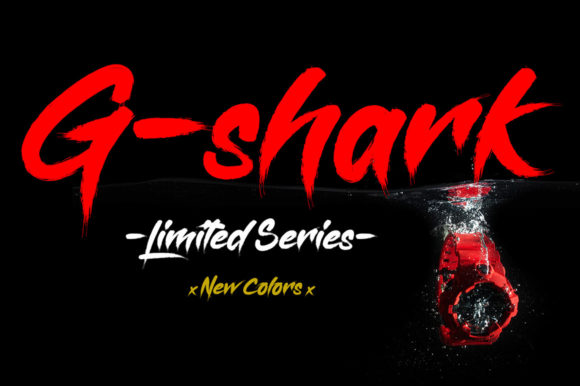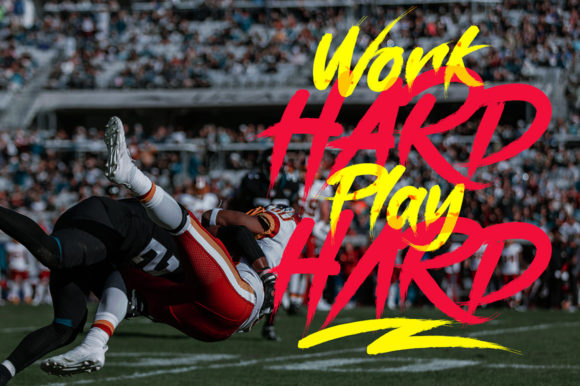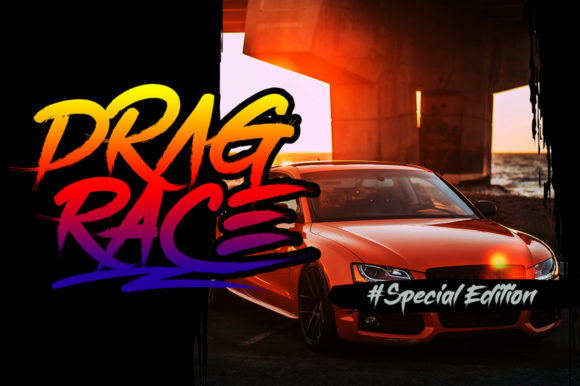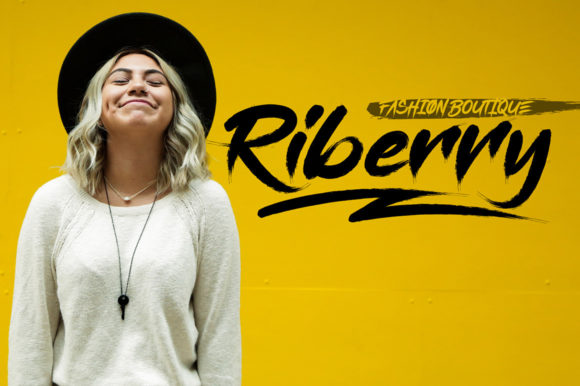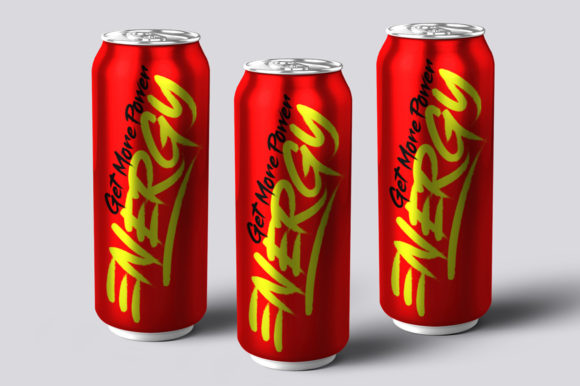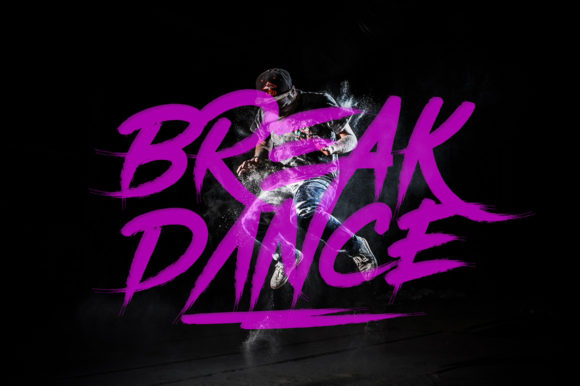
Gisbon Font: The Ultimate Choice for Designers and Crafters
Are you tired of using the same old fonts for your designs? Look no further than the Gisbon Font, a cool and brushed display font that’s perfect for making a statement. In this article, we’ll dive into the world of Gisbon Font and explore its features, uses, and benefits for designers and crafters.
What is Gisbon Font?
Gisbon Font is a unique and stylish display font that’s designed to add a touch of personality to your designs. Its cool and brushed texture gives it a distinctive look that’s sure to grab attention. Whether you’re working on a logo, advertisement, or clothing design, Gisbon Font is the perfect choice.
Key Features of Gisbon Font
- Cool and Brushed Texture: Gisbon Font features a cool and brushed texture that gives it a unique and stylish look.
- Display Font: Gisbon Font is a display font, making it perfect for headlines, titles, and other prominent text elements.
- Versatile: Gisbon Font is suitable for a wide range of designs, including t-shirts, sportswear, logos, advertisements, clothing, and more.
- Easily Readable: Despite its unique texture, Gisbon Font is easily readable, making it perfect for designs that require a clear and concise message.
Uses of Gisbon Font
Gisbon Font is a versatile font that can be used in a variety of designs, including:
- T-Shirts and Apparel: Gisbon Font is perfect for designing t-shirts, hoodies, and other apparel.
- Logos and Branding: Gisbon Font can be used to create unique and memorable logos for businesses and brands.
- Advertisements: Gisbon Font is great for creating eye-catching advertisements that grab attention.
- Clothing and Fashion: Gisbon Font can be used to design labels, tags, and other branding elements for clothing and fashion brands.
Benefits of Using Gisbon Font
So why choose Gisbon Font for your designs? Here are just a few benefits:
- Unique and Stylish: Gisbon Font adds a touch of personality to your designs, making them stand out from the crowd.
- Versatile: Gisbon Font can be used in a wide range of designs, making it a great addition to any designer’s toolkit.
- Easily Readable: Gisbon Font is easy to read, making it perfect for designs that require a clear and concise message.
- High-Quality: Gisbon Font is a high-quality font that’s designed to deliver exceptional results.
Tips for Using Gisbon Font
Here are a few tips for getting the most out of Gisbon Font:
- Use it as a Headline Font: Gisbon Font is perfect for headlines and titles, so use it to grab attention and make a statement.
- Experiment with Colors: Gisbon Font looks great in a variety of colors, so don’t be afraid to experiment and find the perfect color for your design.
- Pair it with Other Fonts: Gisbon Font can be paired with other fonts to create a unique and stylish look.
In conclusion, Gisbon Font is a cool and brushed display font that’s perfect for designers and crafters looking to add a touch of personality to their designs. Its unique texture, versatility, and readability make it a great choice for a wide range of designs, from t-shirts and apparel to logos and advertisements. With its high-quality design and ease of use, Gisbon Font is a must-have for any designer looking to take their designs to the next level.